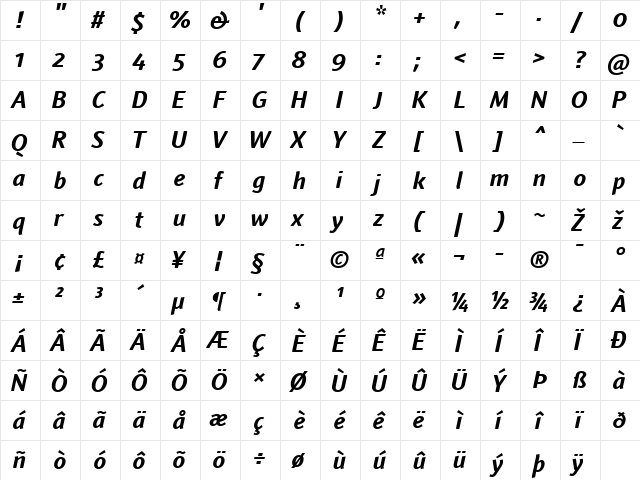
Textra LT Book Bold Italic
| Foundry | Linotype Library GmbH |
| Designer | Jochen Schuss |
Design Context for Textra LT Book Typeface
Textra LT Book is a composed and adaptable typeface that performs quietly and consistently across a wide range of design contexts. The dynamic lean of this cut emphasises speed and emphasis in any layout. Its bold stroke weight gives it real presence on the page.